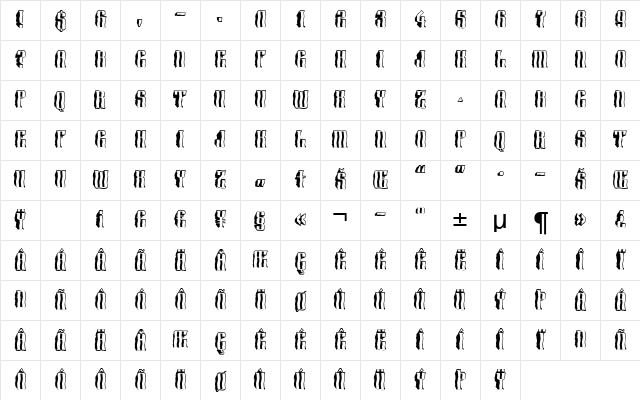
a_Harder3dBrk Regular
Design Context for a_Harder3dBrk
a_Harder3dBrk is a composed and adaptable typeface that performs quietly and consistently across a wide range of design contexts.